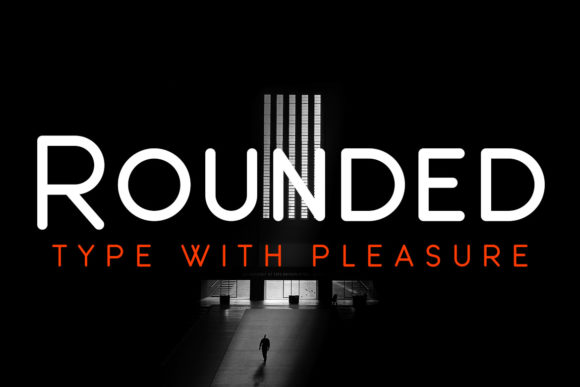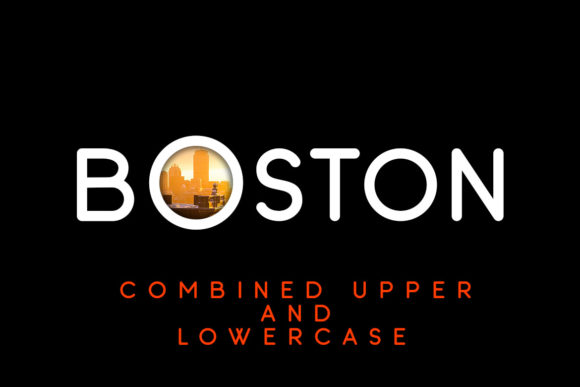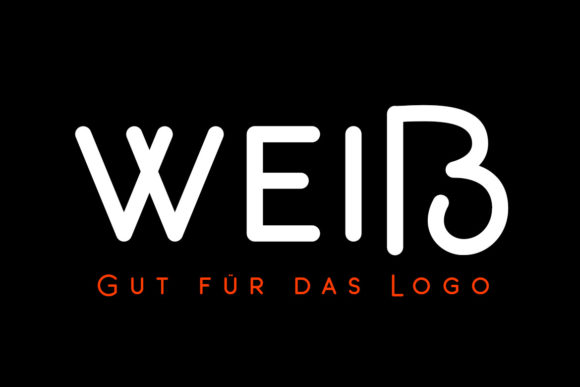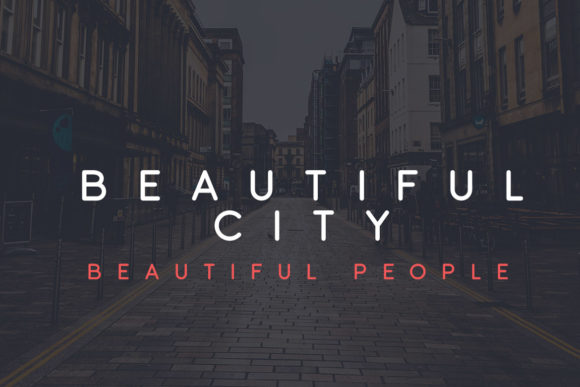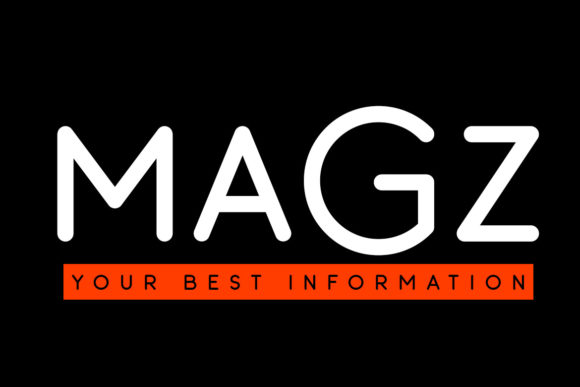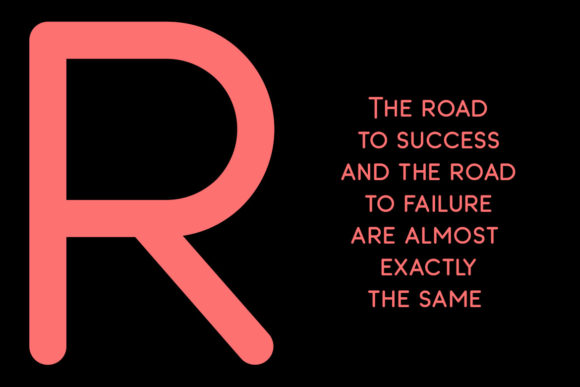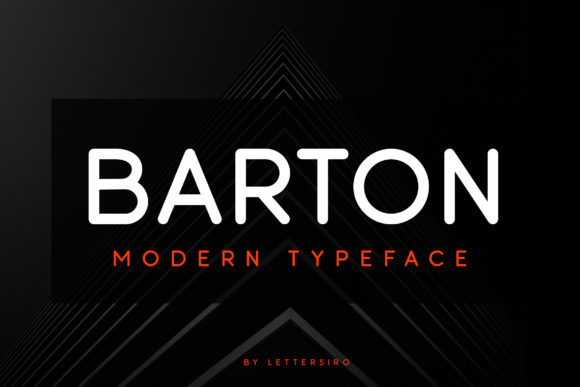
Barton Font: Elevate Your Designs with Elegance and Sophistication
The Barton font is a stunning example of modern typography, boasting an elegant rounded style that exudes sophistication and refinement. This versatile font is perfect for designers and crafters looking to add a touch of luxury to their projects, whether it’s a magazine, book cover, poster, branding campaign, or advertisement.
The Characteristics of Barton Font
The Barton font is characterized by its smooth, rounded edges and sleek lines, giving it a distinctly modern and strong aesthetic. Its elegant curves and refined features make it an excellent choice for designs that require a high level of sophistication and poise. The font’s versatility is one of its most notable features, allowing it to be used in a wide range of applications, from editorial design to branding and advertising.
Perfect for Magazines and Book Covers
Magazines and book covers are prime examples of where the Barton font can truly shine. Its elegant and refined style makes it perfect for titles, headings, and pull quotes, adding a touch of sophistication and glamour to any publication. The font’s readability and legibility ensure that it remains clear and concise, even at smaller font sizes, making it an excellent choice for body text as well.
Make a Statement with Posters and Advertisements
When it comes to posters and advertisements, making a statement is crucial. The Barton font is designed to grab attention and leave a lasting impression, thanks to its bold and confident style. Its modern and strong aesthetic ensures that it stands out in any design, making it perfect for headlines, taglines, and other prominent text elements.
Branding and Identity
For brands looking to establish a strong and sophisticated identity, the Barton font is an excellent choice. Its elegant and refined style makes it perfect for logos, business cards, and other marketing materials, helping to convey a sense of luxury and refinement. The font’s versatility also ensures that it can be used across various platforms, from digital media to print materials.
Why Designers and Crafters Love Barton Font
Designers and crafters love the Barton font for its unique combination of elegance and versatility. Here are just a few reasons why:
- Elegant and refined style: The Barton font’s smooth, rounded edges and sleek lines give it a distinctly modern and sophisticated aesthetic.
- Versatile: The font can be used in a wide range of applications, from editorial design to branding and advertising.
- Readability and legibility: The font’s clear and concise design ensures that it remains readable and legible, even at smaller font sizes.
- Makes a statement: The Barton font’s bold and confident style makes it perfect for headlines, taglines, and other prominent text elements.
In conclusion, the Barton font is an excellent choice for designers and crafters looking to add a touch of elegance and sophistication to their projects. Its modern and strong style, combined with its versatility and readability, make it perfect for a wide range of applications. Whether you’re working on a magazine, book cover, poster, branding campaign, or advertisement, the Barton font is sure to elevate your design and leave a lasting impression.